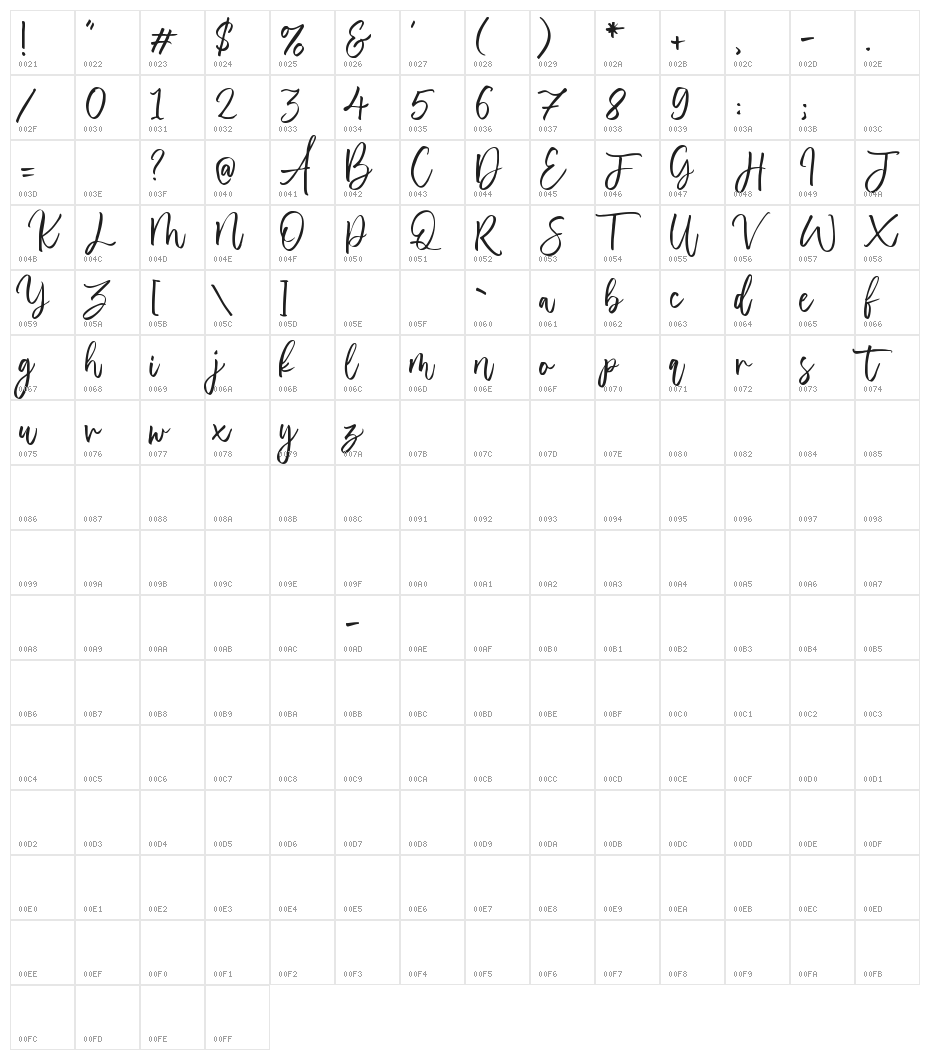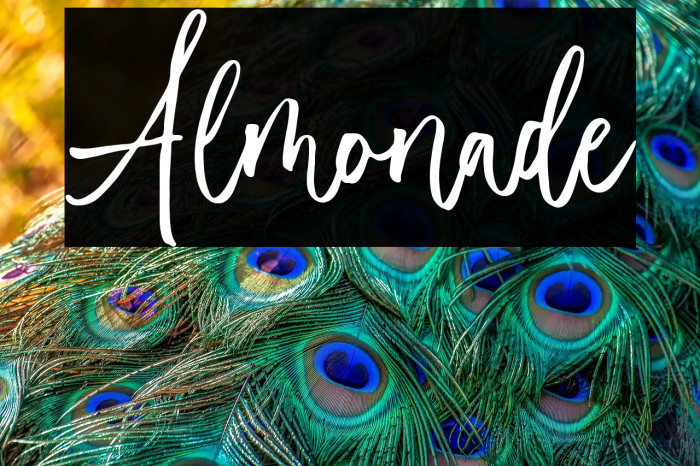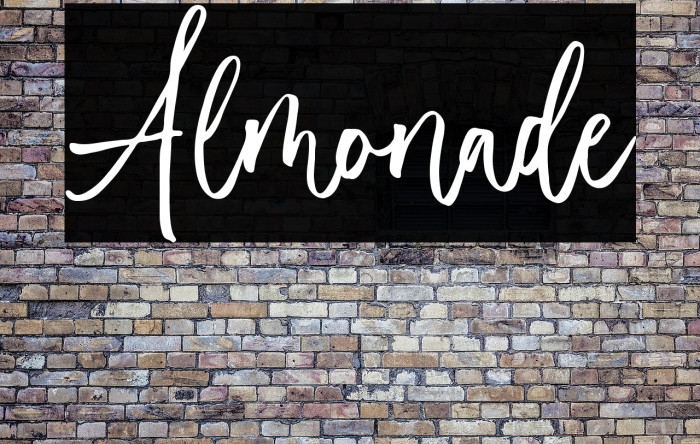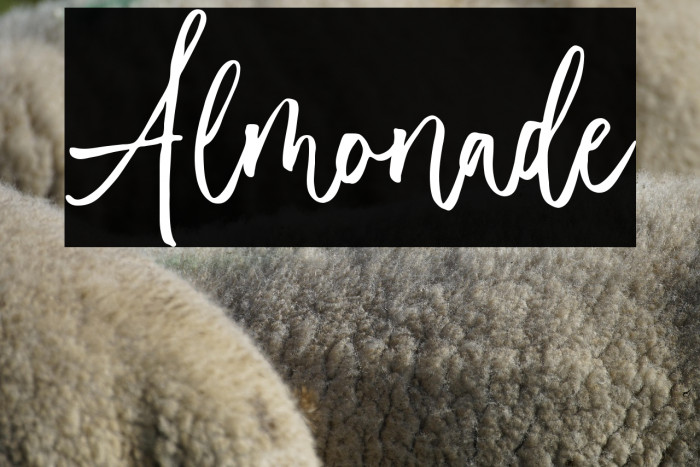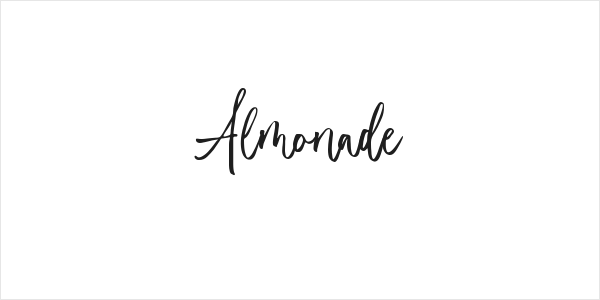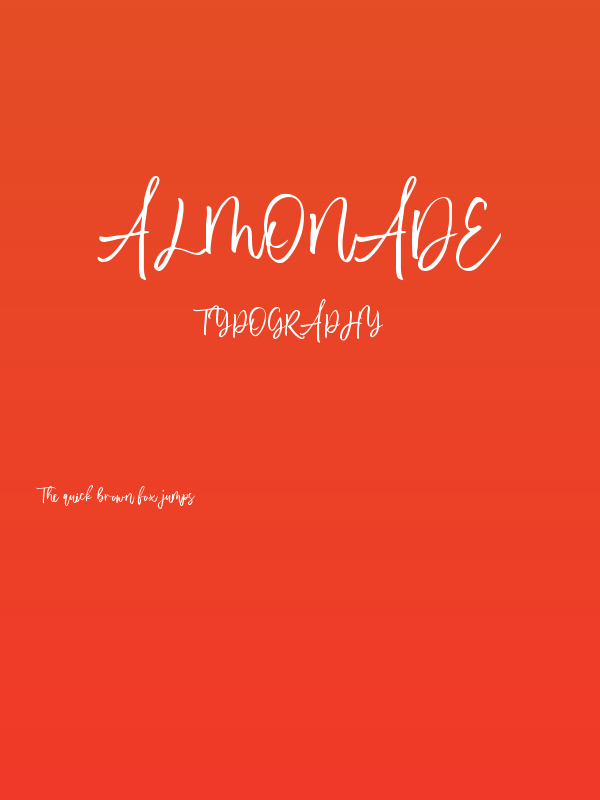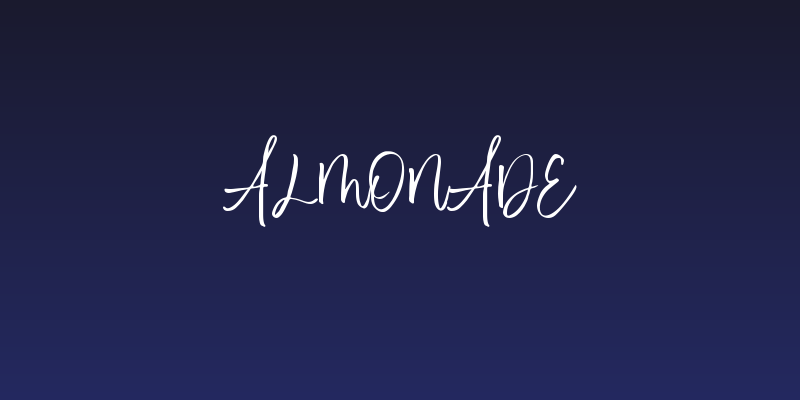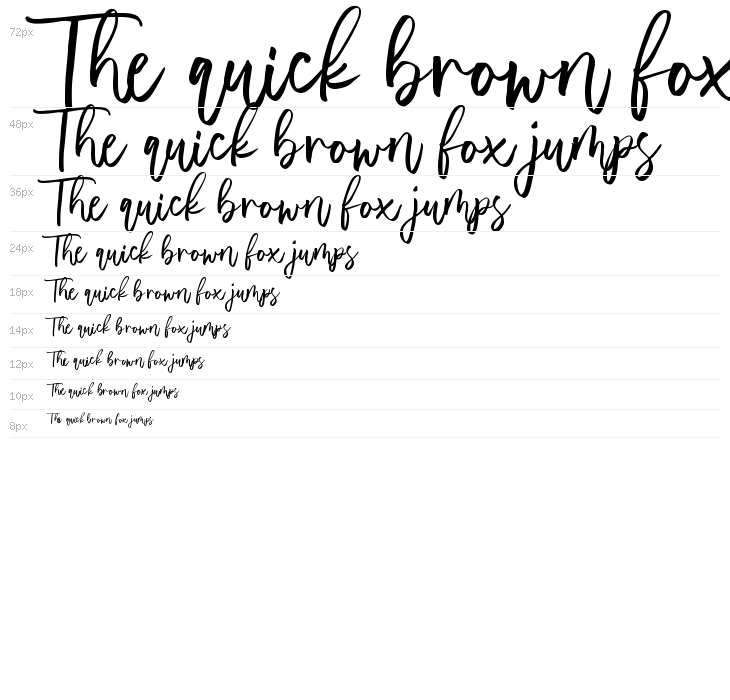
Almonade Font
Almonade Description
This font features a lively and energetic script style, characterized by its flowing, cursive letters that mimic the fluidity of natural handwriting. The uppercase letters are bold and slightly slanted, giving a sense of movement and dynamism. The lowercase letters maintain a consistent rhythm, with loops and curves that add a playful touch. The numerals are equally expressive, maintaining the same handwritten aesthetic. Special characters are creatively integrated, ensuring they complement the overall style. This font is perfect for projects that require a personal, handcrafted feel.
| Use Case | Logos, Invitations, Greeting Cards |
| Proposed Projects | Ideal for greeting cards, invitations, personal branding, and creative projects that require a personal touch. |